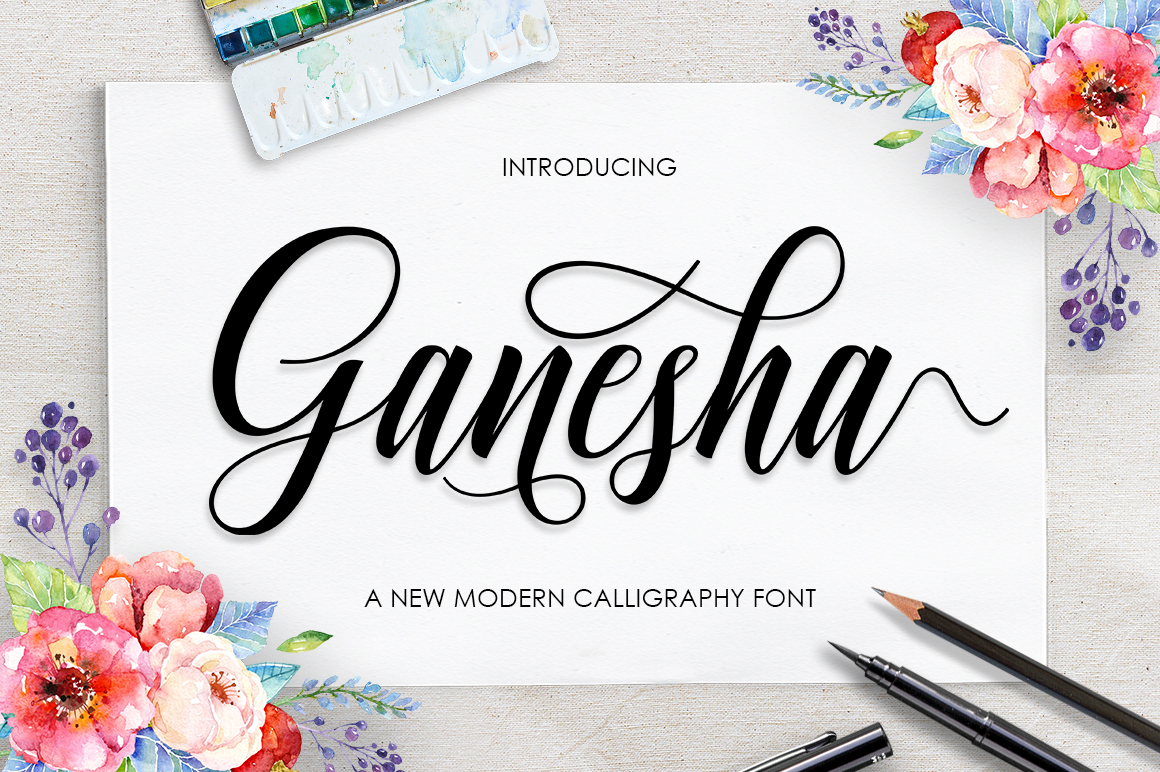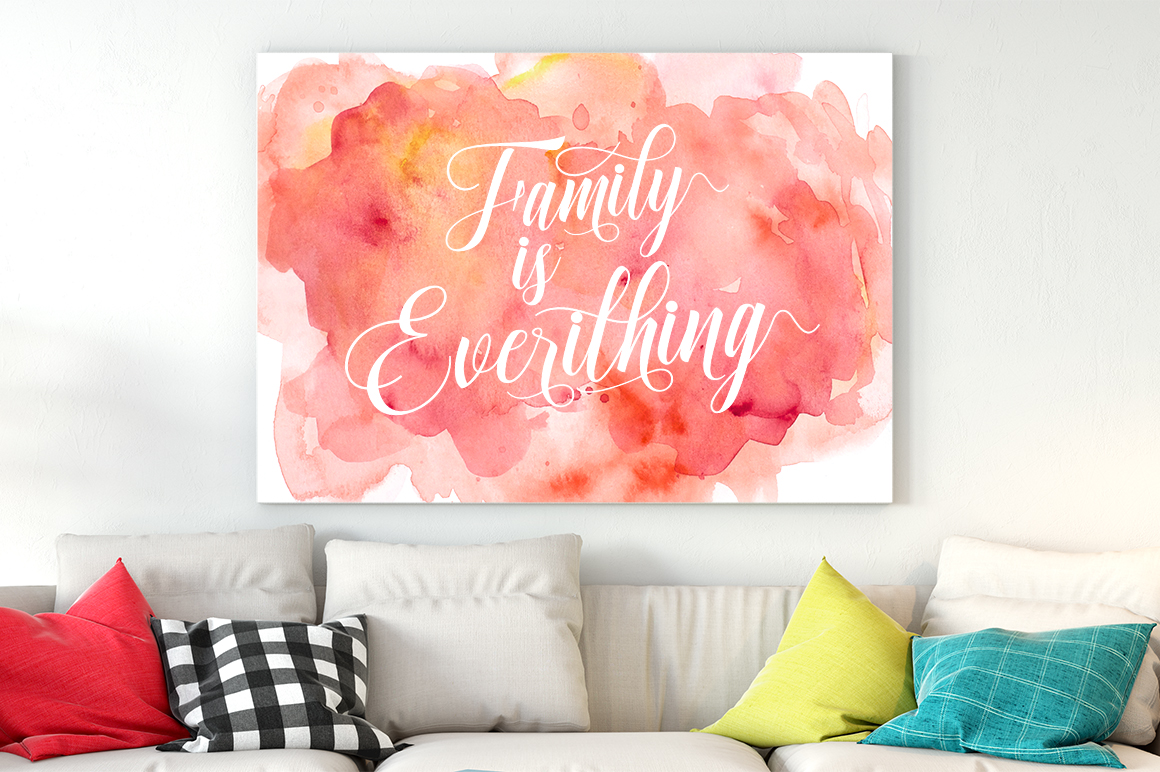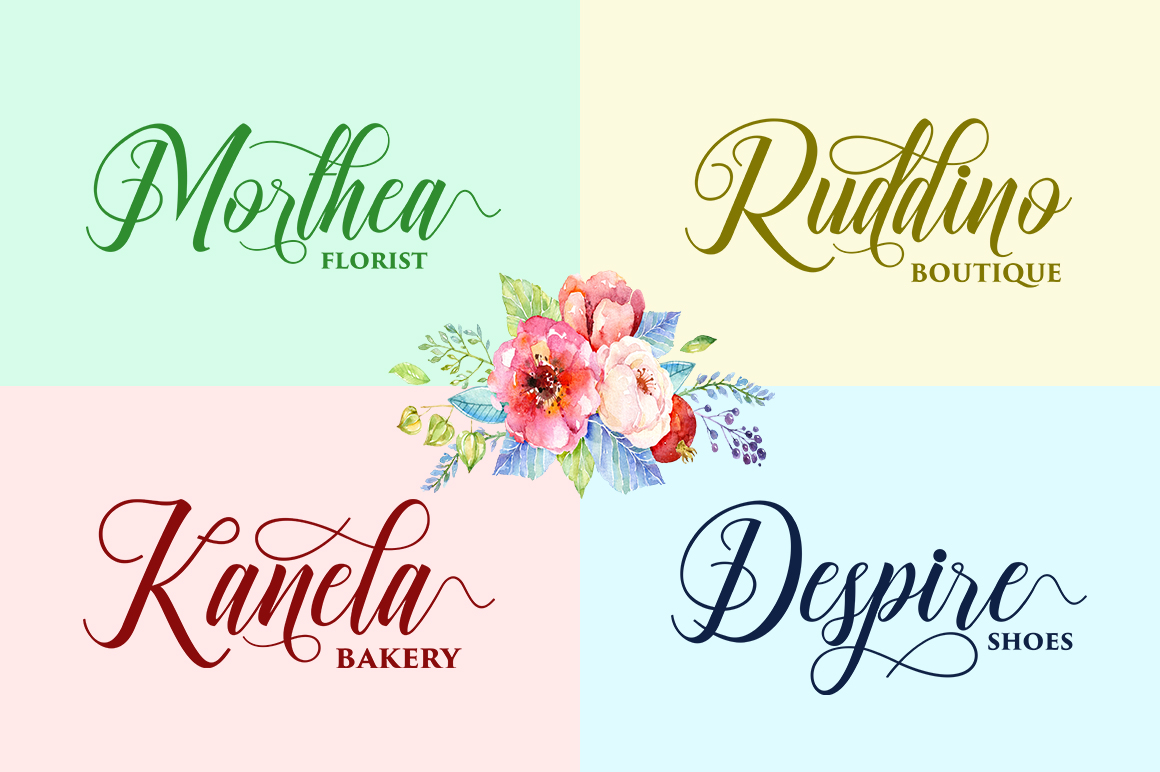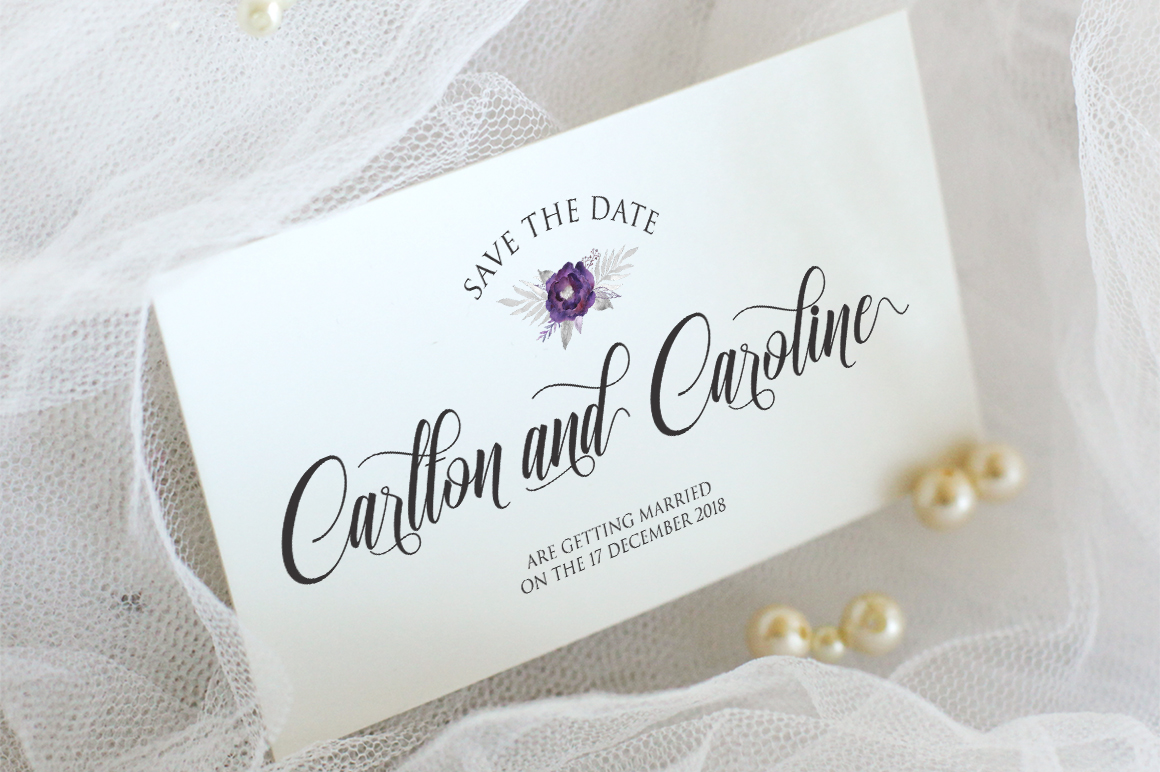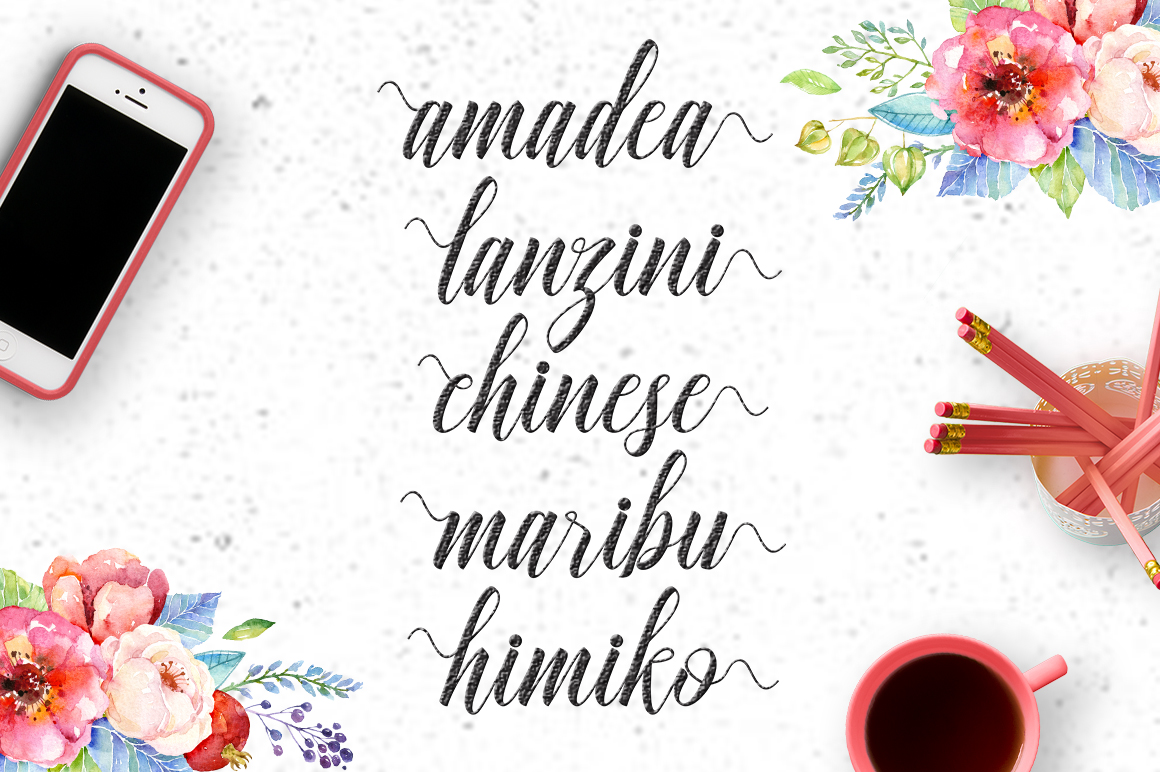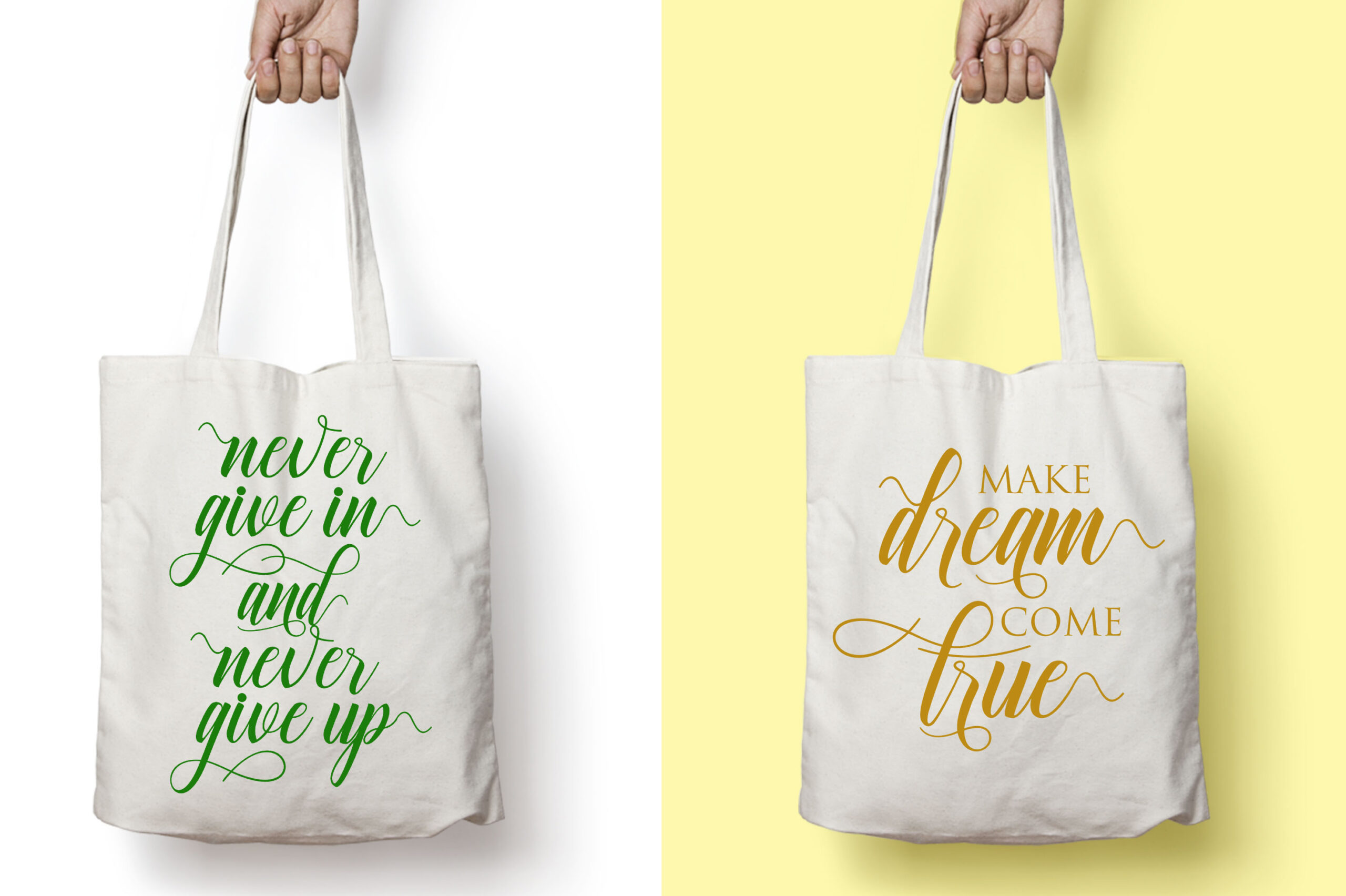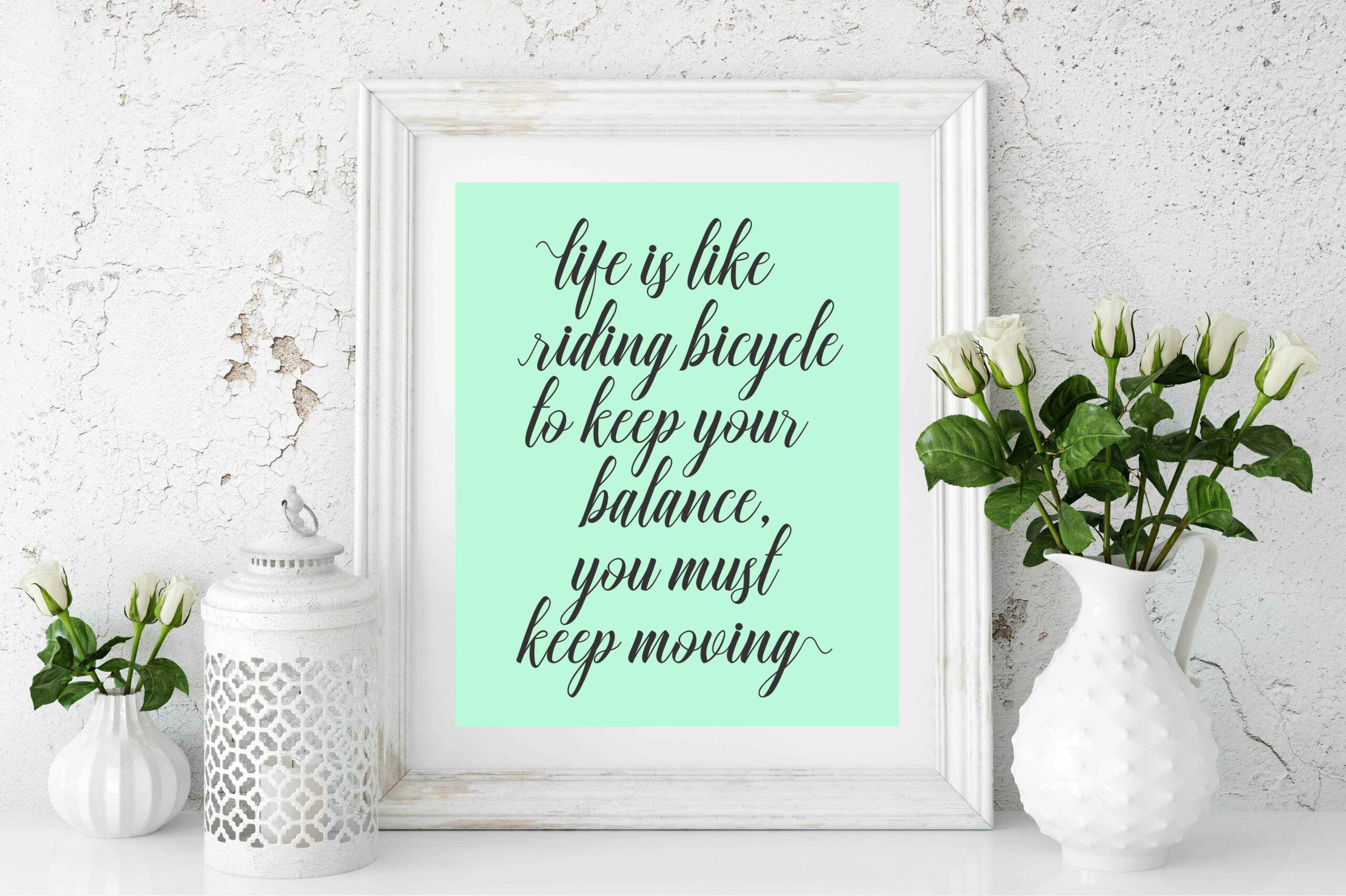
Ganesha Script Font
About Ganesha Script Font
Ganesha Script is a beautiful font with tons of embellishments, ligatures and character alternates for stunningly unique looking calligraphy. This font is a great option for displays and headlines, and with beautiful swashes, can add a wonderfully romantic appeal to your designs.